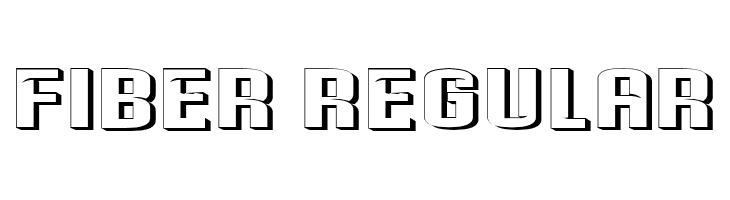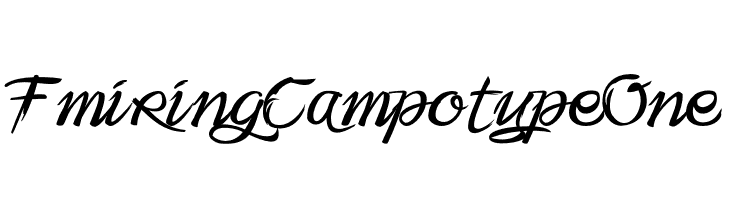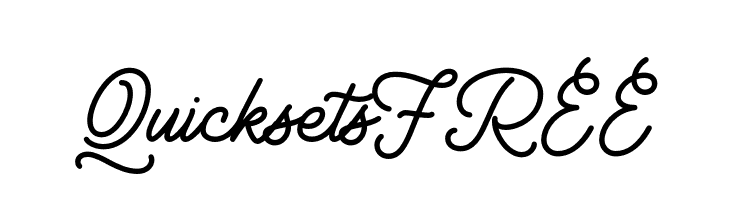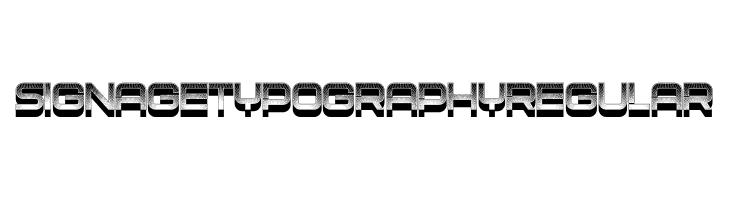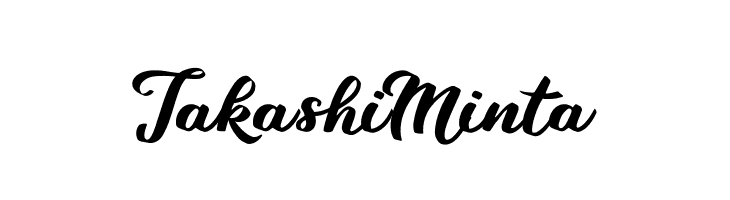
A bold, decorative font with a 3D effect and intricate detailing.
A graceful and sophisticated script font with flowing, interconnected letters.
A bold, elongated serif font with a modern yet classic style.
A playful handwritten font with dynamic strokes and whimsical flair.
A modern, clean sans-serif font with geometric influences and uniform stroke widths.
A bold, halftone-effect font with a modern and dynamic style.
A lively, handwritten script font with bold strokes and playful curves.
A bold, geometric outline font with rounded corners and consistent character height.
A dynamic and expressive font with sharp, angular strokes and flowing curves.
A bold, geometric font with a three-dimensional shadow effect.